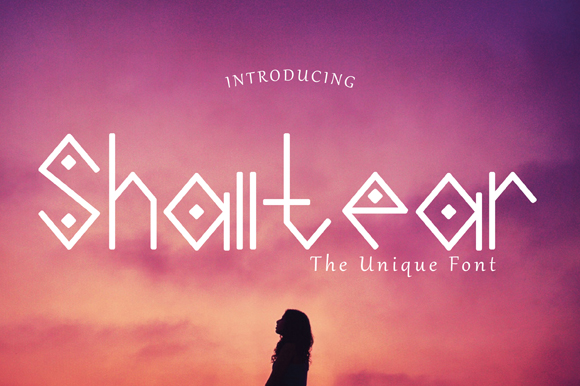
Font name: | Shalltear |
Author: | Marhandam Palindung |
Shalltear is a display font decorated with tribal patterns. The typeface includes Decorative, Black and Symbol versions. The font is easy to use in various design programs or without any program. Shalltear font is suitable for lettering posters and cards, tourist brochures, photo overlays, book covers and article titles. The font works great both for printing clothes and craft products branding and packaging (floristics, soap making, natural cosmetics). Also use individual letters to create logos and monograms. Font Style: 1.Regular 2.Bold (Full Version) 3.Italic (Full Version) 4.Bold Italic (Full Version) =========================================================== NOTE: This demo font is for PERSONAL USE ONLY! But any donation are very appreciated. Paypal account for donation : https://www.paypal.me/MarhandamPalindung Link to purchase full version and commercial license: https://www.creativefabrica.com/product/shalltear/ Please visit our store for more great fonts : https://www.creativefabrica.com/designer/up-font-studio And follow my instagram for update : @upfontstudio Thank you |